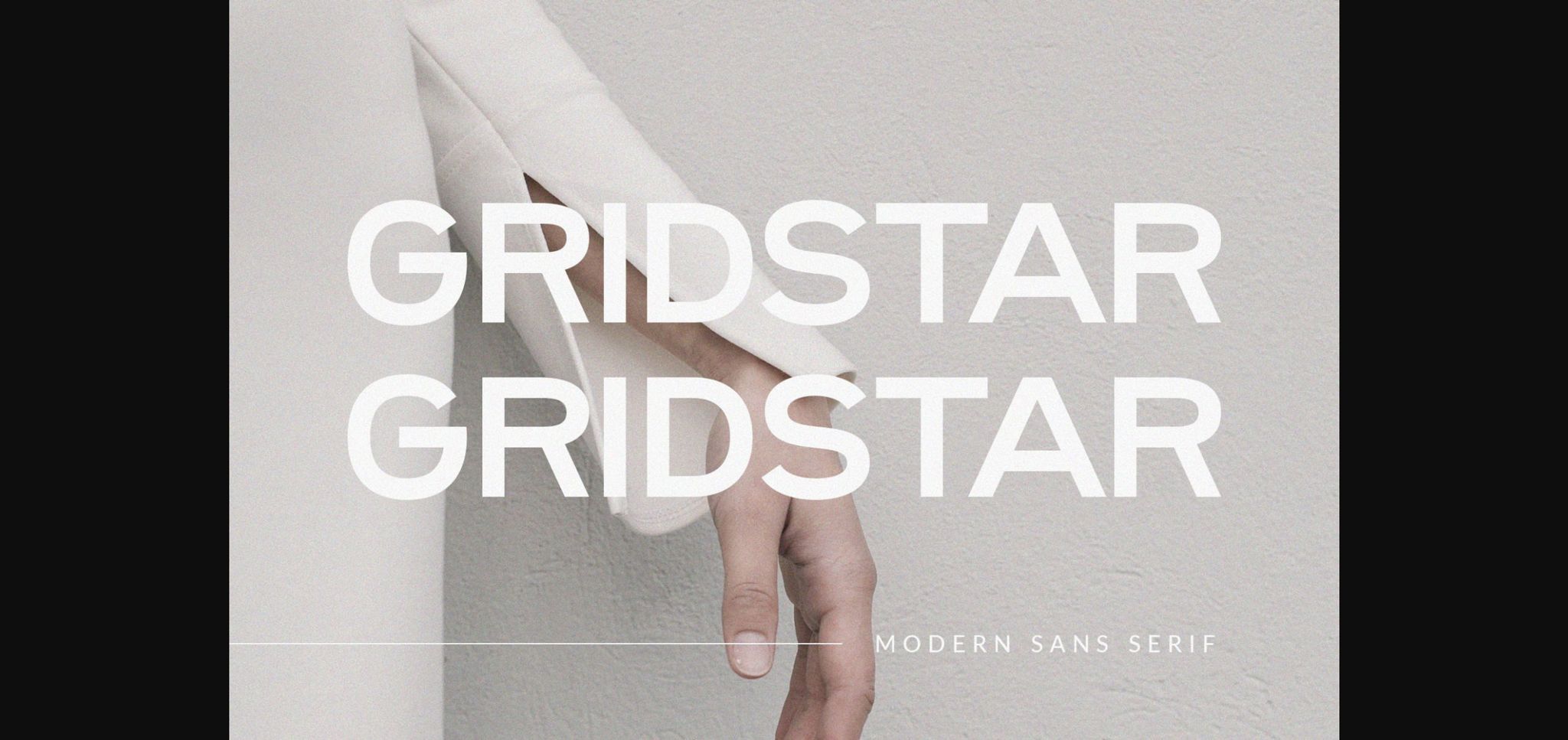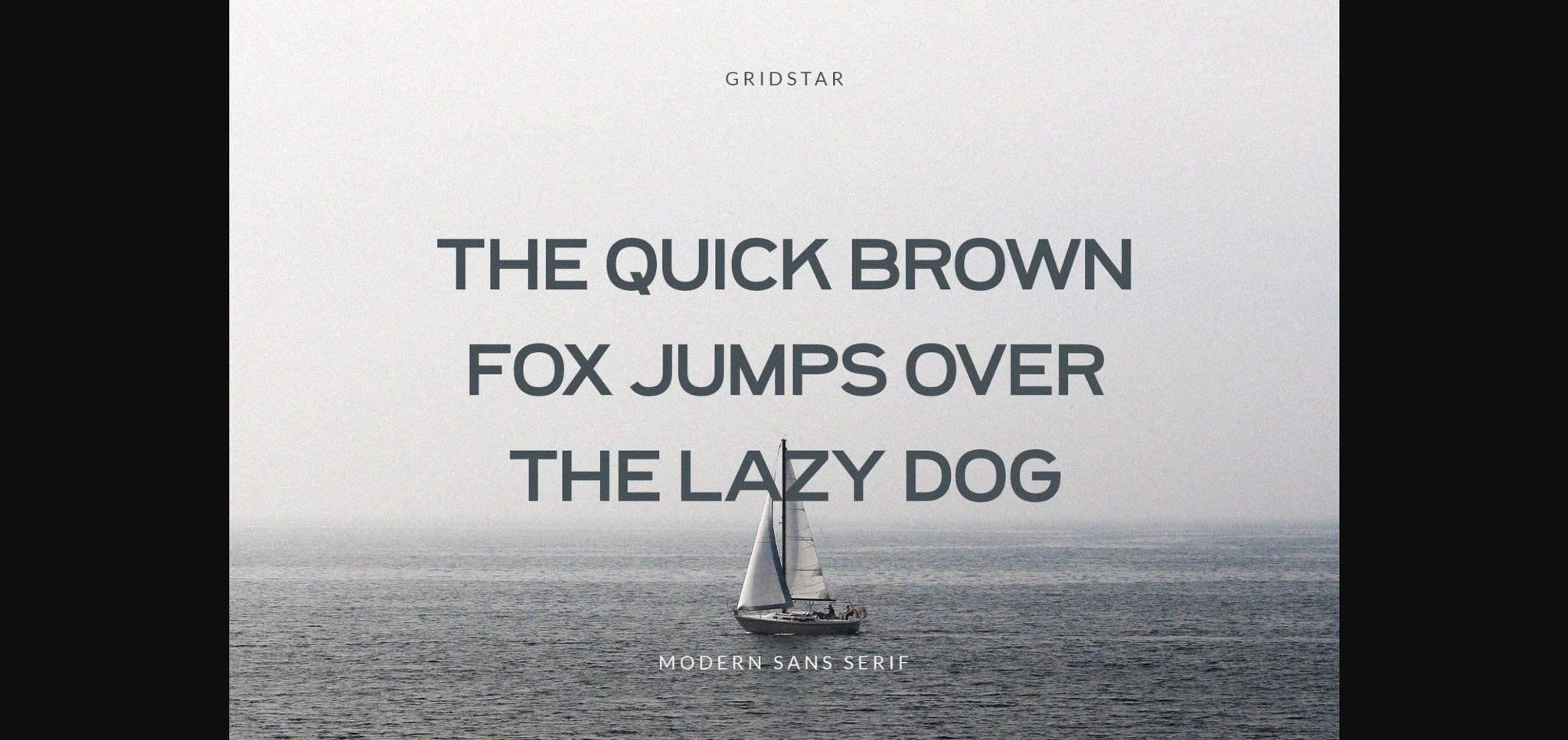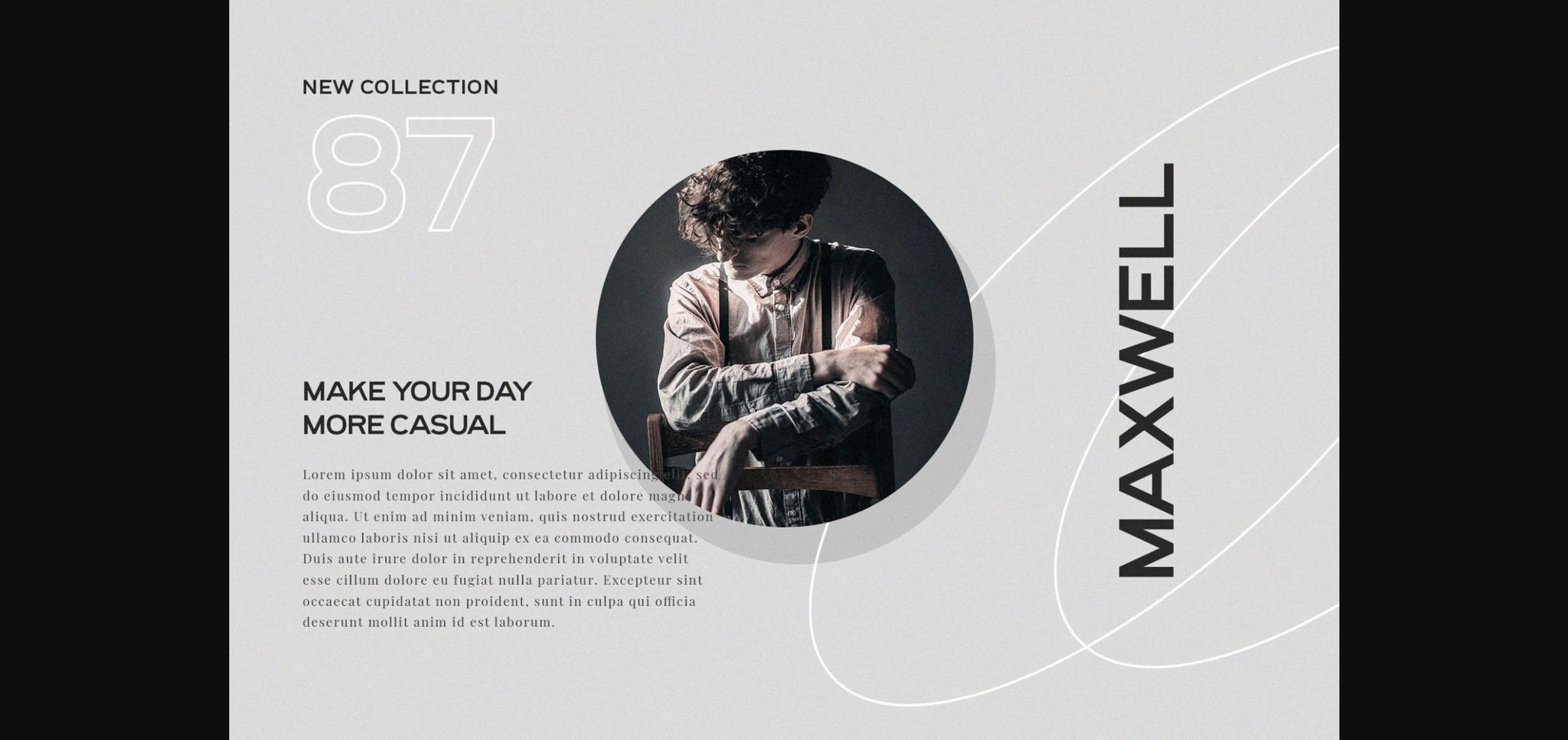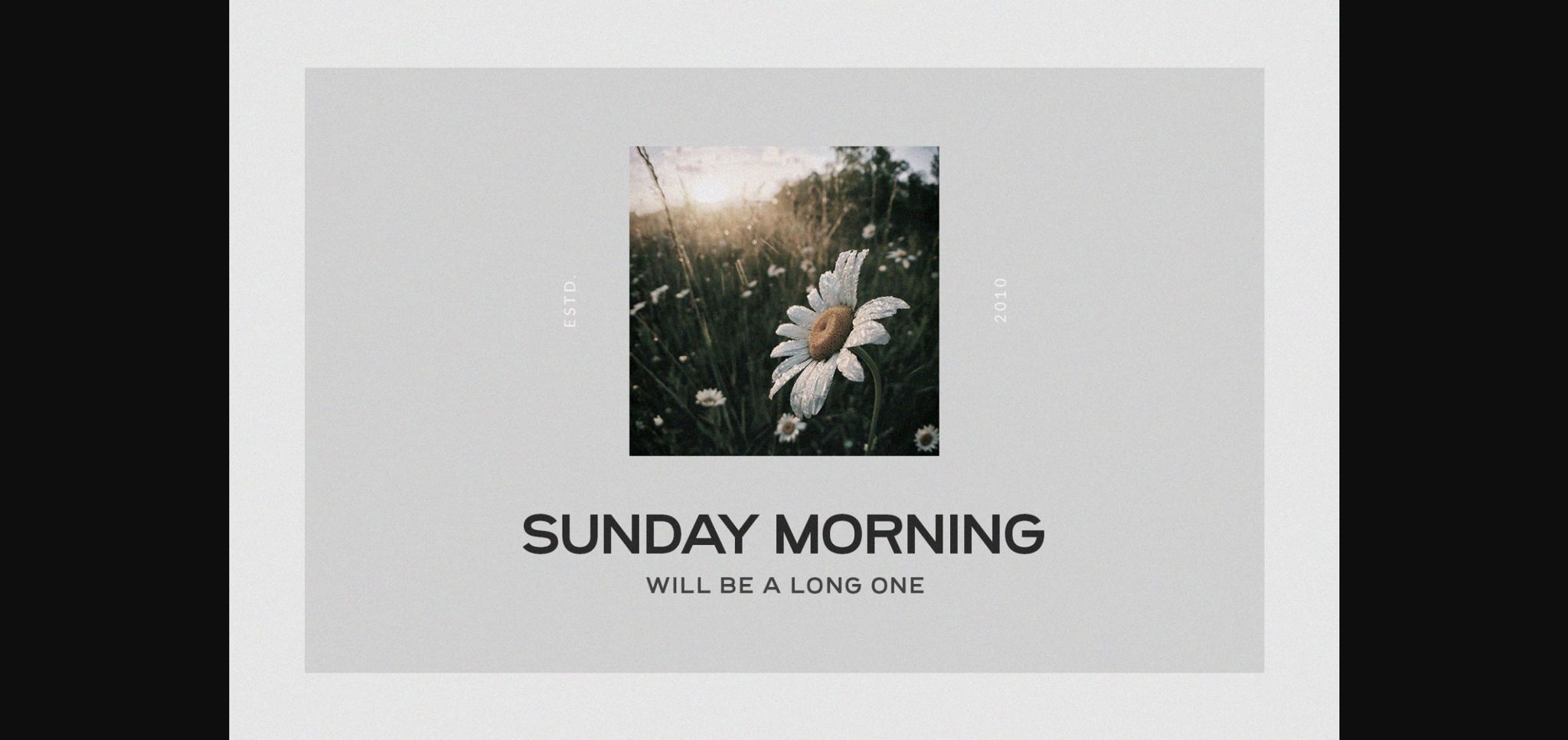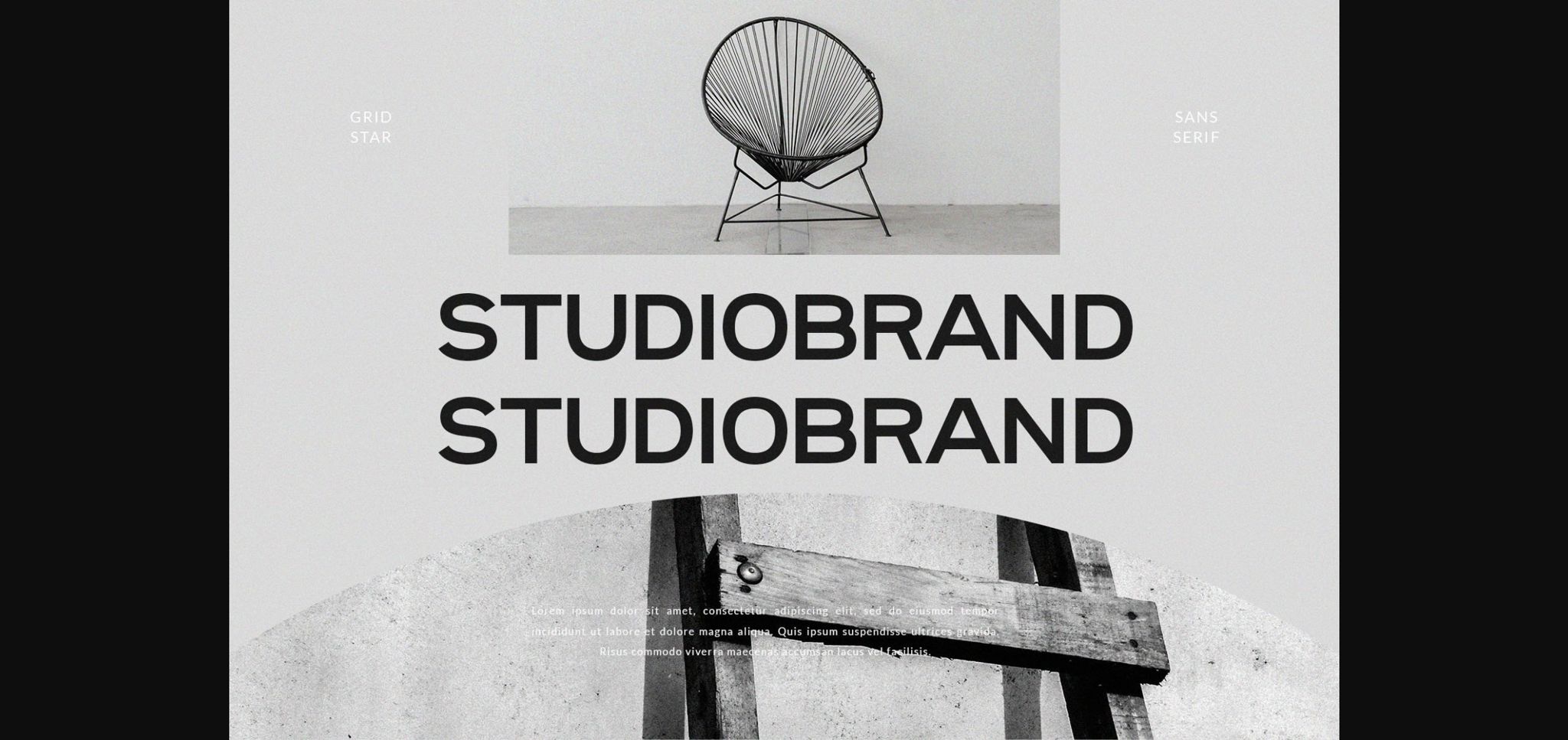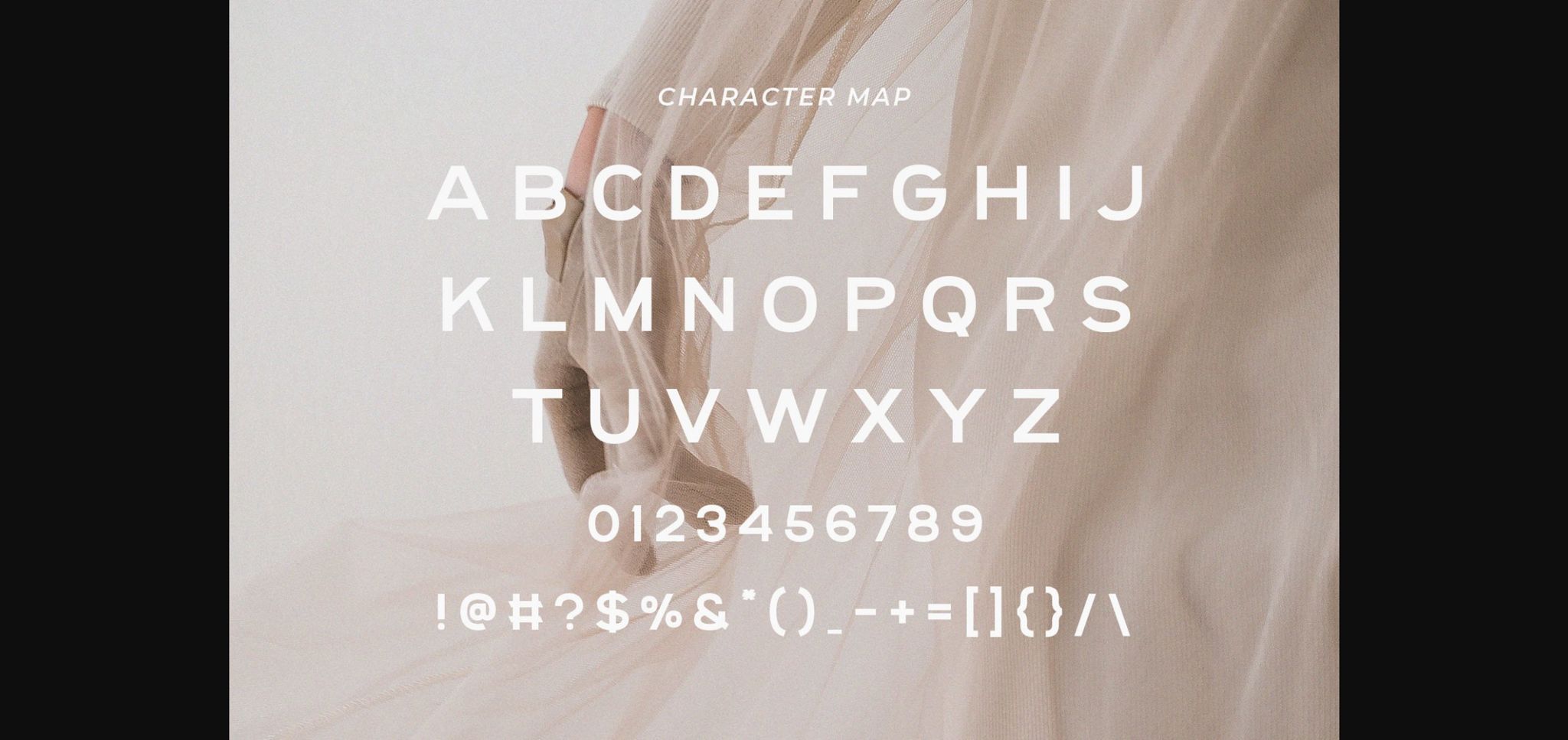
About Gridstar Font
Gridstar is a classy and neat sans serif font masterfully designed to become a true favorite. It maintains its classy calligraphic influences while feeling contemporary and fresh. Fall in love with it and bring your projects to the highest levels!